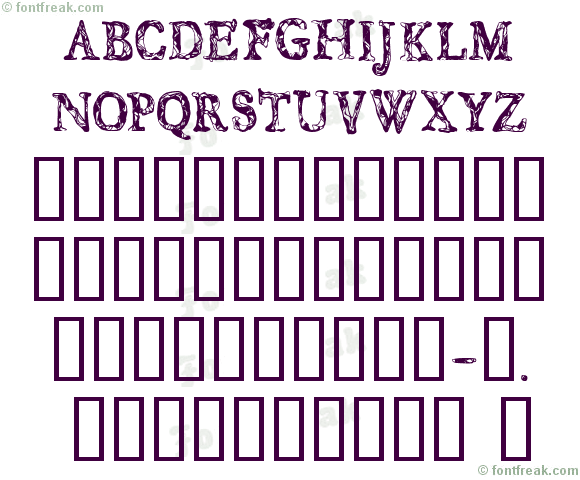
CF JUNGLE Regular
About CF JUNGLE Regular
CF JUNGLE Regular by Cloutierfontes is a captivating display font that exudes a playful yet rugged charm, perfect for projects that call for a distinct personality. This font falls into the decorative category, characterized by its unique, intricate letterforms that appear almost hand-crafted. The strokes are varied in weight, creating a lively contrast that draws the eye, while the spacing between characters is thoughtfully designed to maintain readability without sacrificing style. The decorative elements, reminiscent of tropical flora and fauna, add an adventurous flair, making this font a statement choice for any creative endeavor.
Ideal use cases for CF JUNGLE Regular include vibrant wedding invitations that aim to capture a whimsical atmosphere, eye-catching movie posters that need to convey a sense of adventure, and engaging restaurant menus that invite diners into a themed dining experience. Additionally, this font works beautifully for branding materials that require a touch of originality, appealing to small business owners looking to establish a memorable visual identity. Graphic designers and content creators will find this font particularly useful for projects that demand a fun yet sophisticated aesthetic.
What sets CF JUNGLE Regular apart is its ability to infuse personality and character into a variety of designs. The combination of its artistic style and versatile applications makes it a standout choice for anyone looking to elevate their creative projects. Whether you’re designing for print or digital media, the CF JUNGLE Regular font free download option allows you to experiment and bring your ideas to life without any financial barriers. Embrace the jungle vibes and let this font transform your work into something truly remarkable.